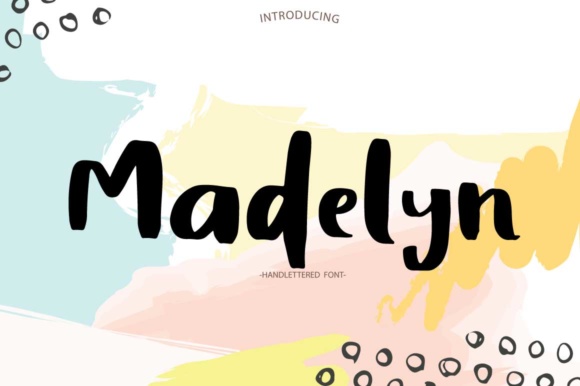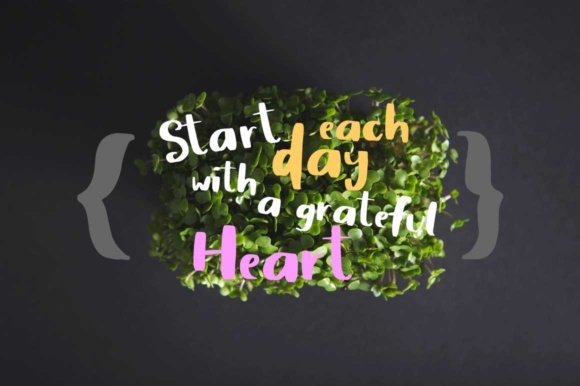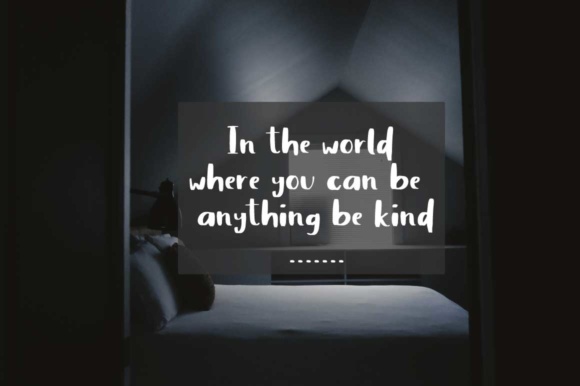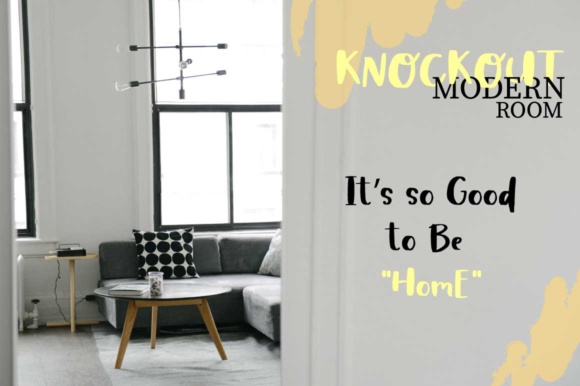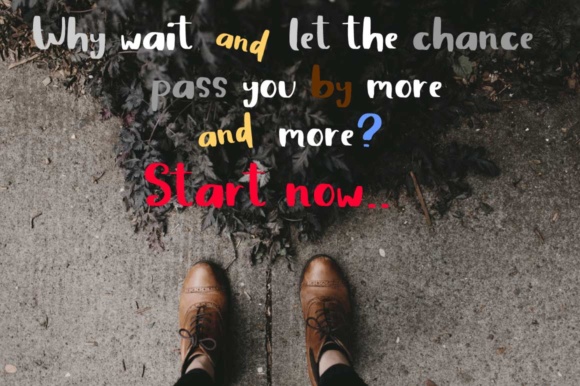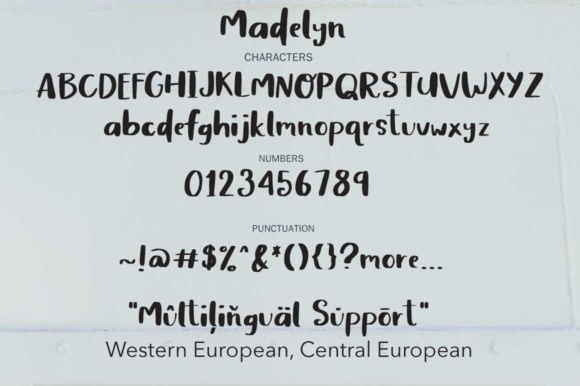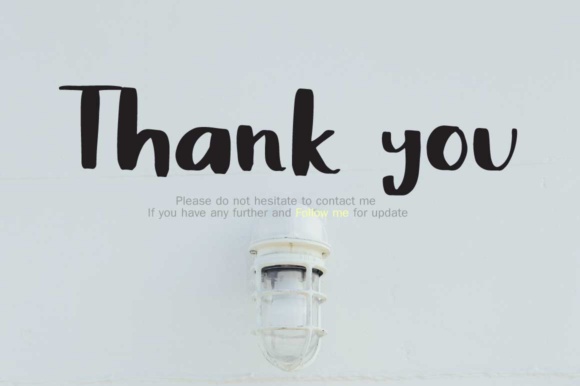
HomeScript FontsMadelyn Font Script Fonts Madelyn Font FacebookXPinterestWhatsApp Madelyn Font Poster 2 Madelyn Font Poster 3 Madelyn Font Poster 4 Madelyn Font Poster 5 Madelyn Font Poster 6 Madelyn Font Poster 7 About Madelyn Font The Madelyn is a bold, handwritten font. It big striking letters will give your design a fun, yet striking look. DOWNLOAD NOW People also explored Quick Race Font Nin Kid Font Husban Children Writing Font Ritafurey A Baltism Font Karamelius Font Baklava Font Qonitya Font 306 0 TagsMadelyn Font Previous articleBoulevard FontNext articleBavterlay Font LEAVE A REPLY Cancel reply Comment: Please enter your comment! Name:* Please enter your name here Email:* You have entered an incorrect email address! Please enter your email address here Website: Save my name, email, and website in this browser for the next time I comment. Personal Use Free Salmoni Personal Use Free Read more about this font Frozdotre Personal Use Free Read more about this font Planning Personal Use Free Read more about this font Neuropol Personal Use Free Read more about this font BLOG Fonts That Capture the Spirit of New York City New York City is more than just a place—it’s an experience, a rhythm, a visual language... Where to Buy American Fonts Online in 2024 Transform Your Website: Elevate Your Typography with 7 Best Web Font Generators Top 7 Google Fonts Alternatives for Faster and Privacy-Friendly Web Design (2025)